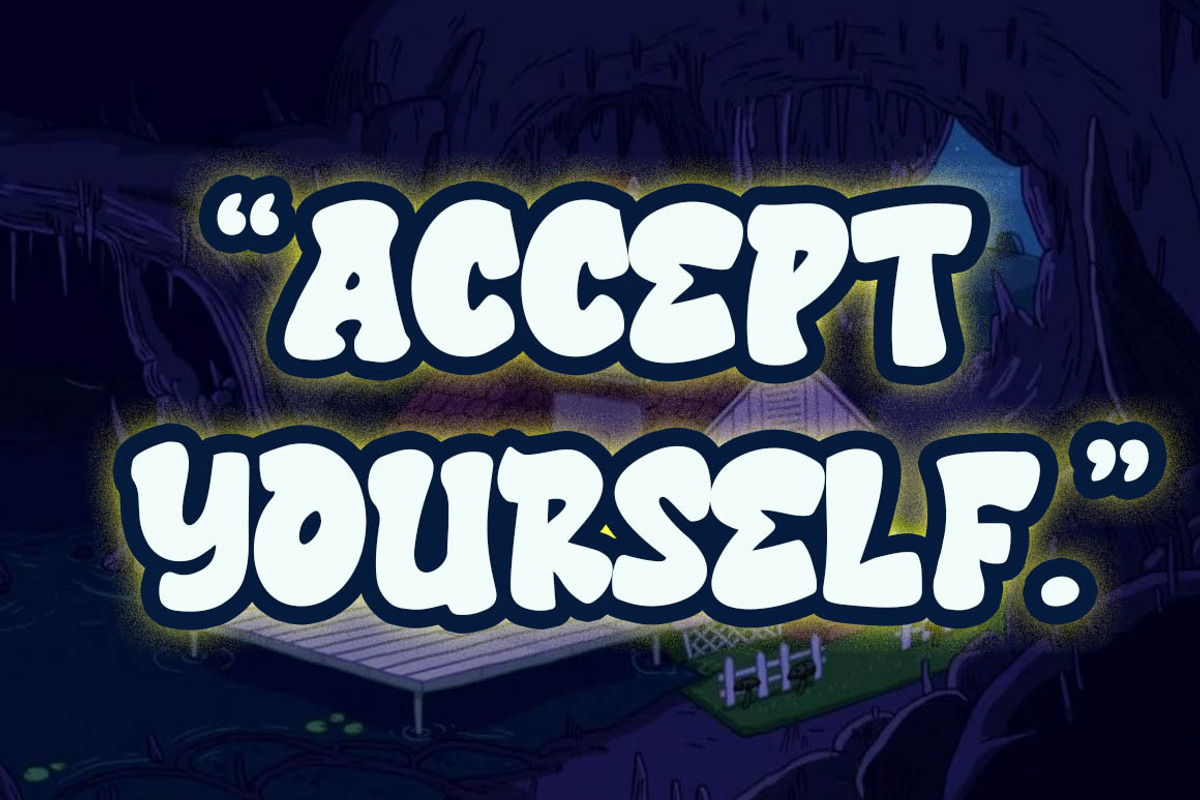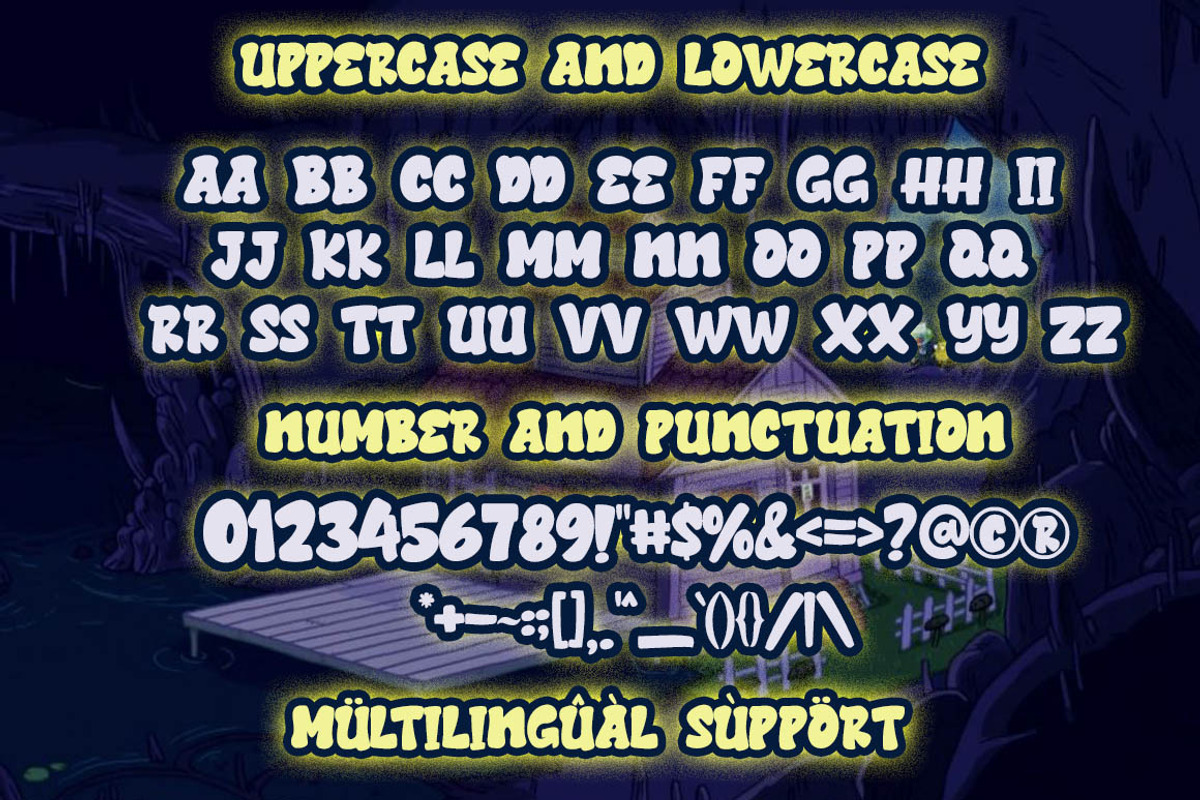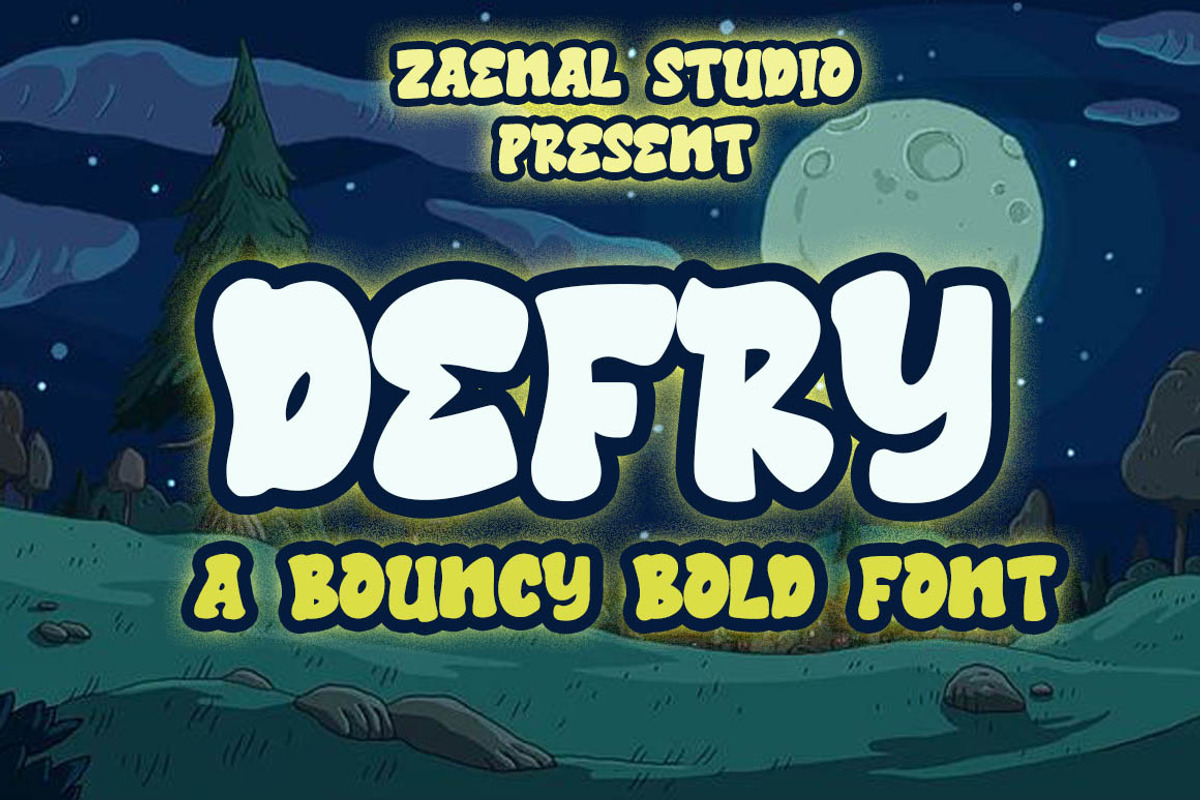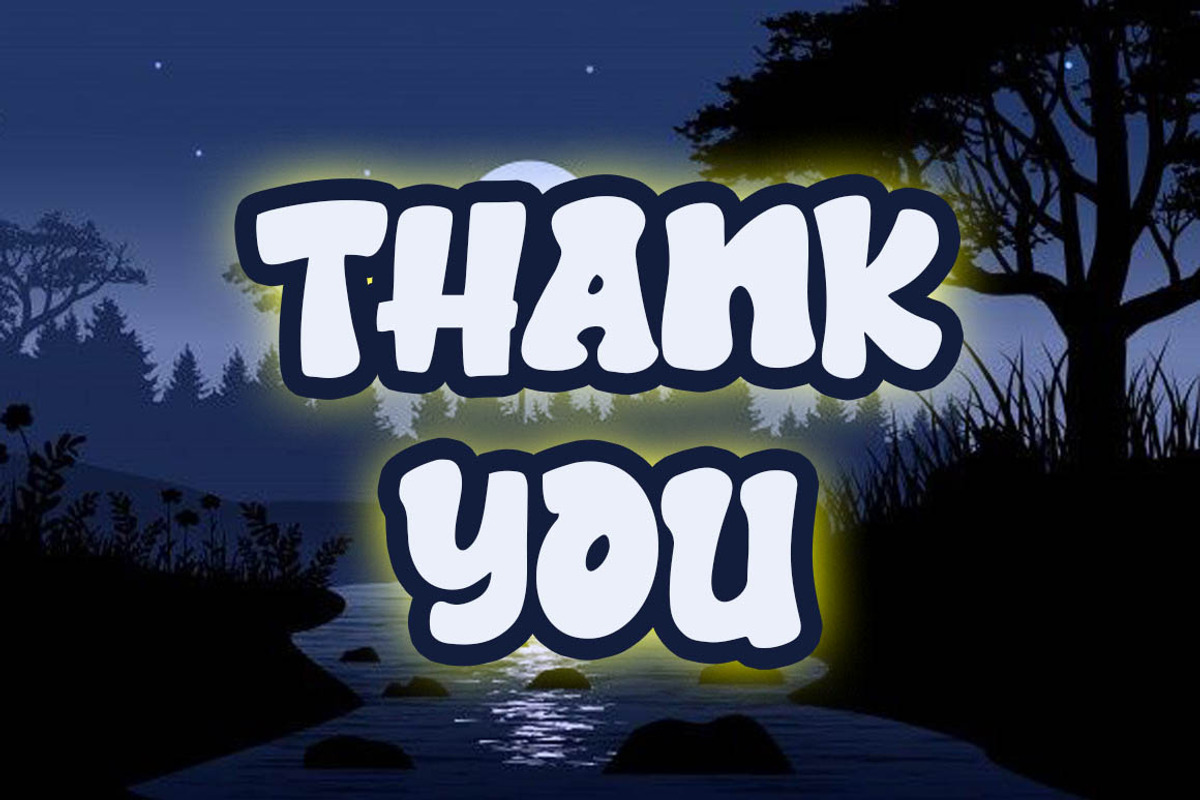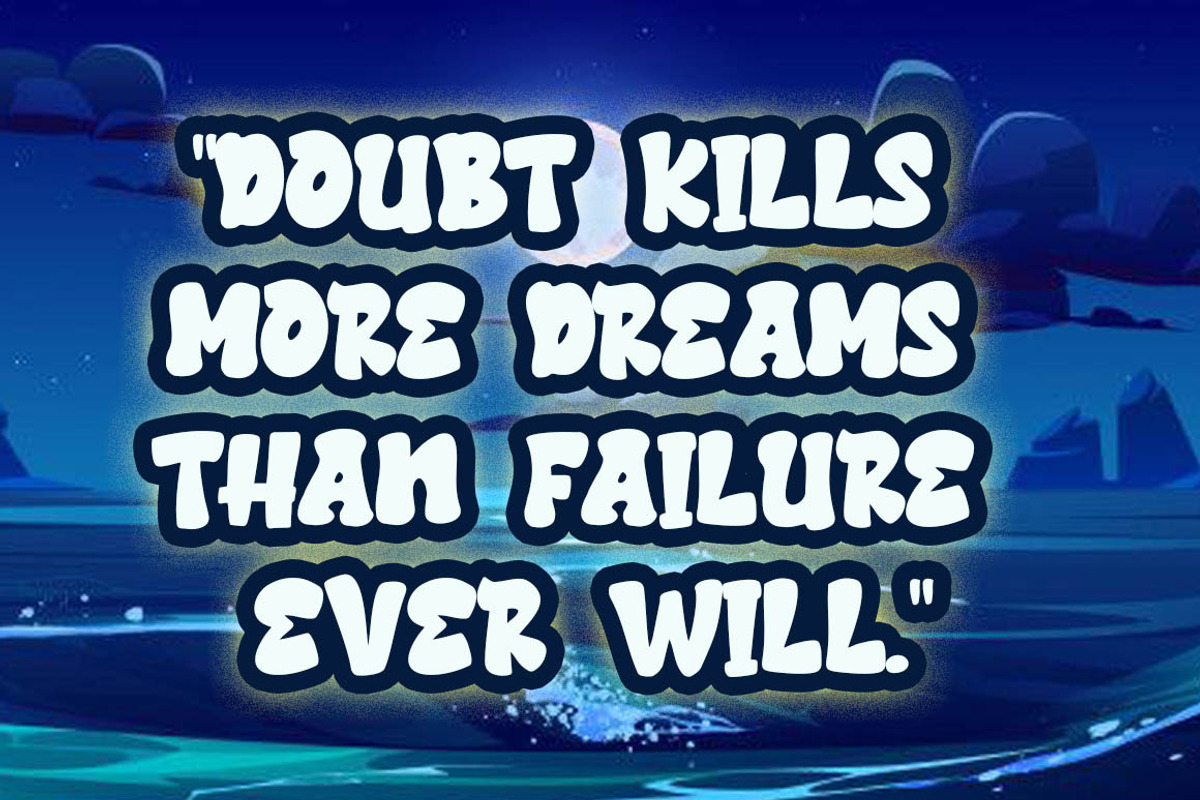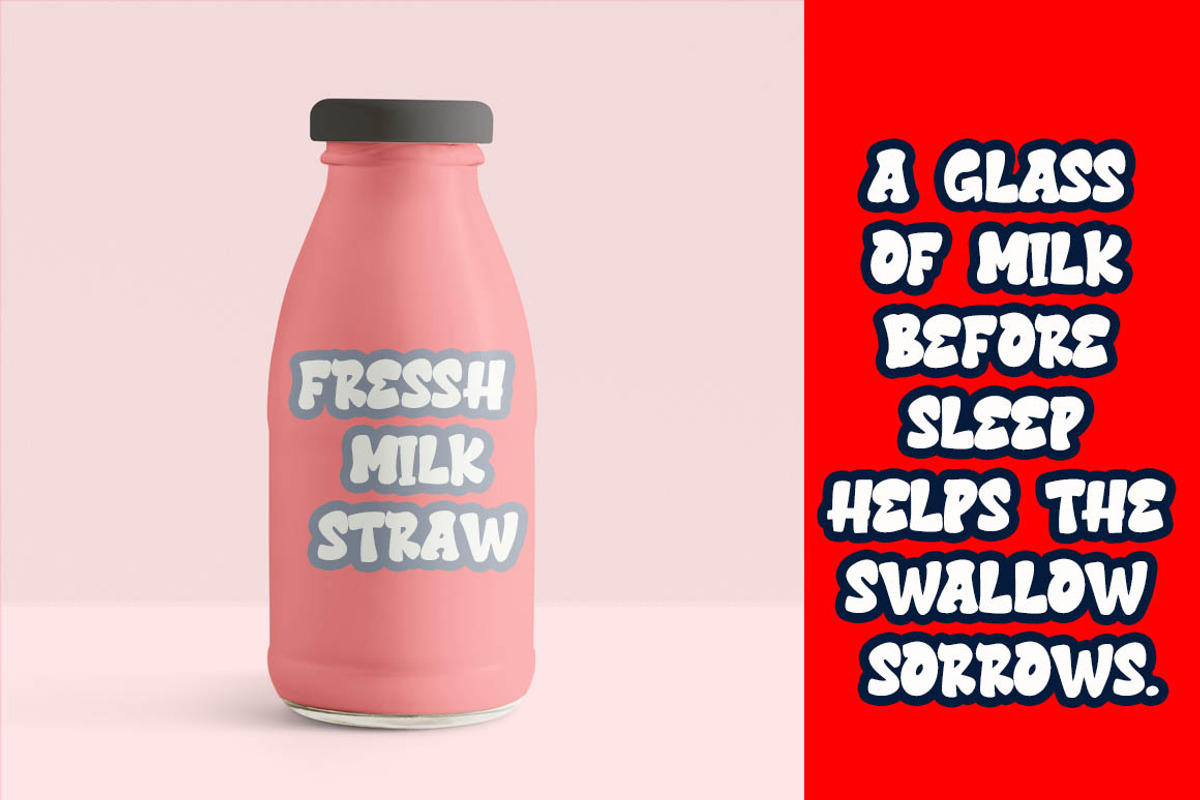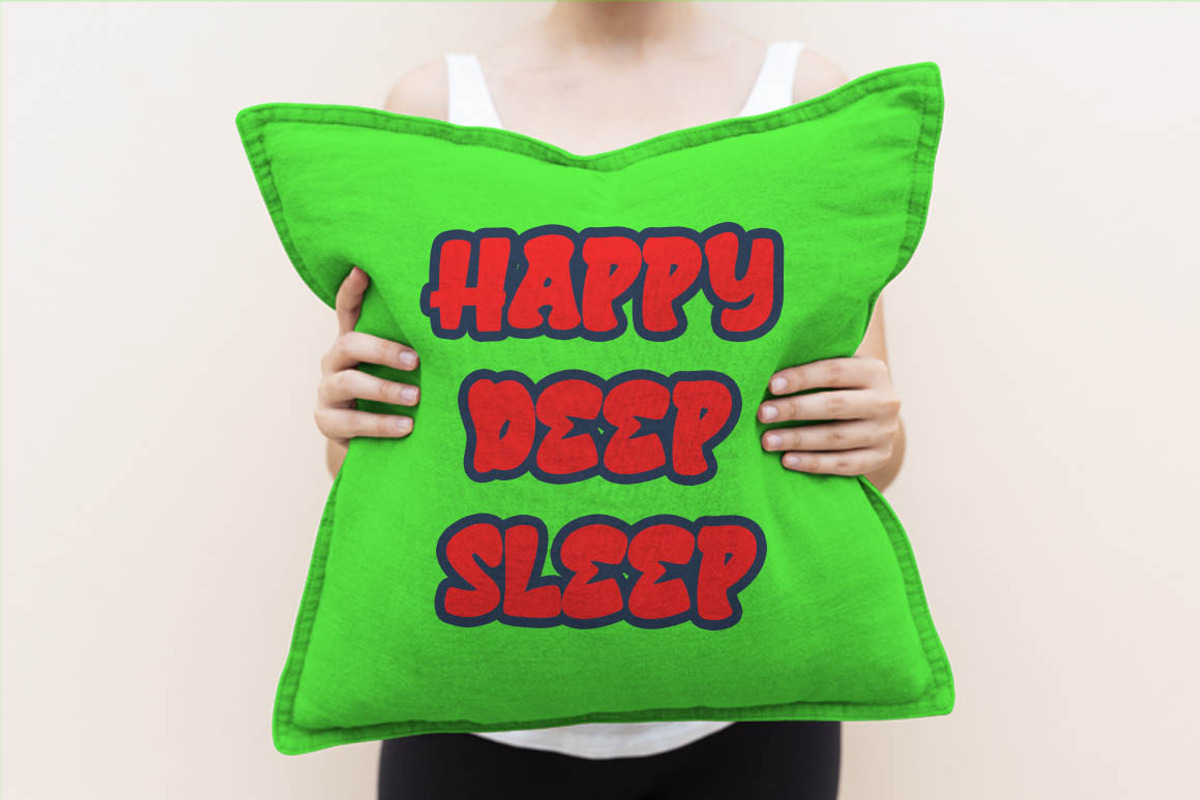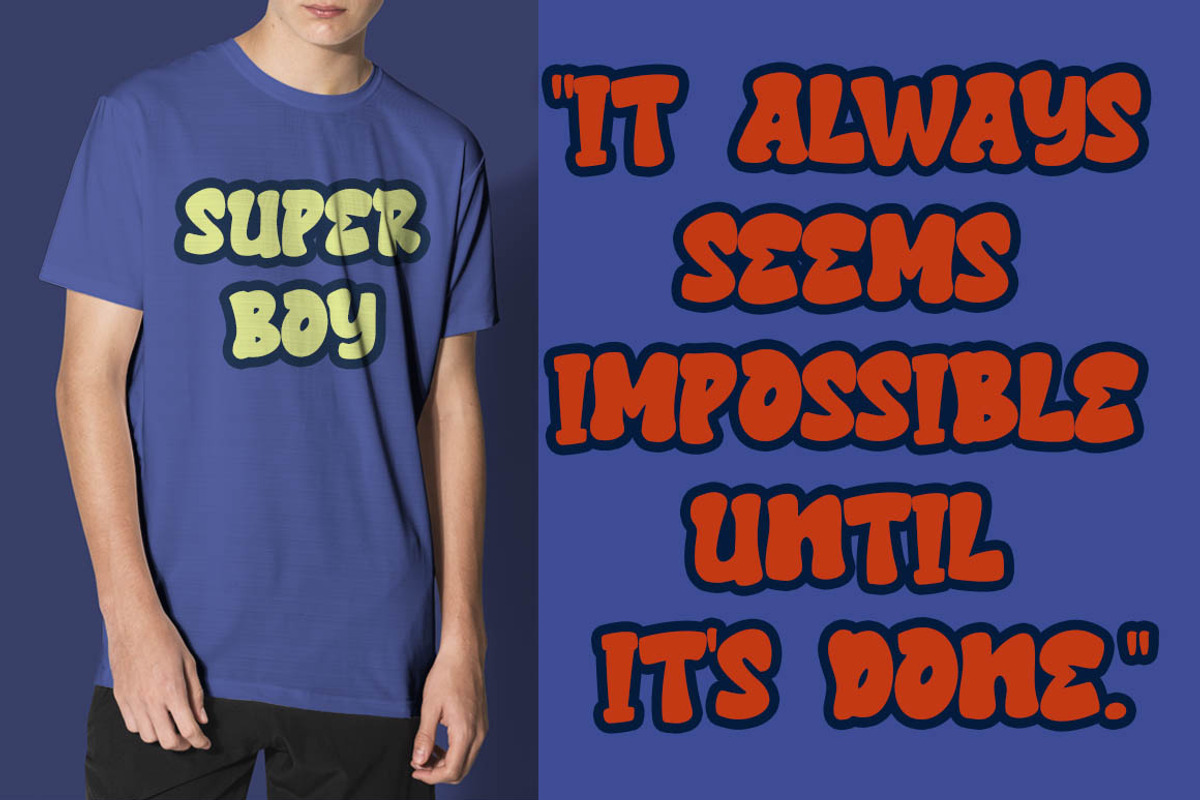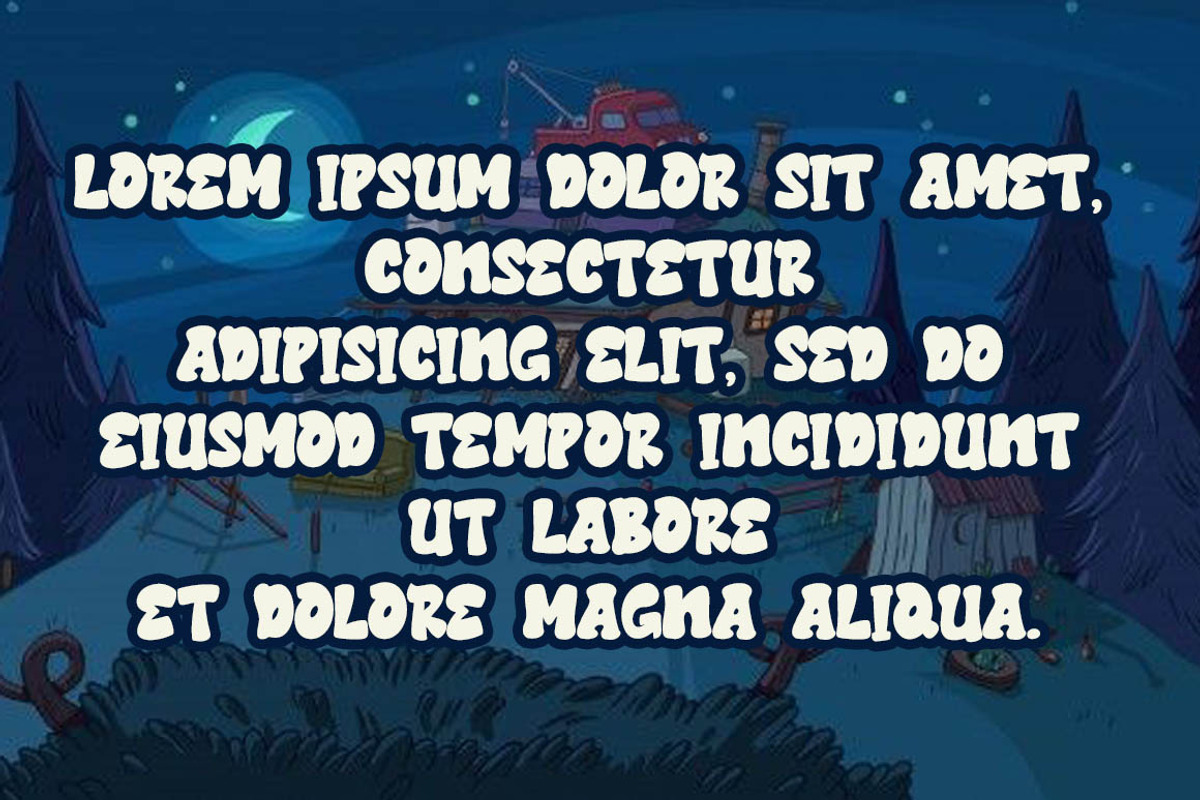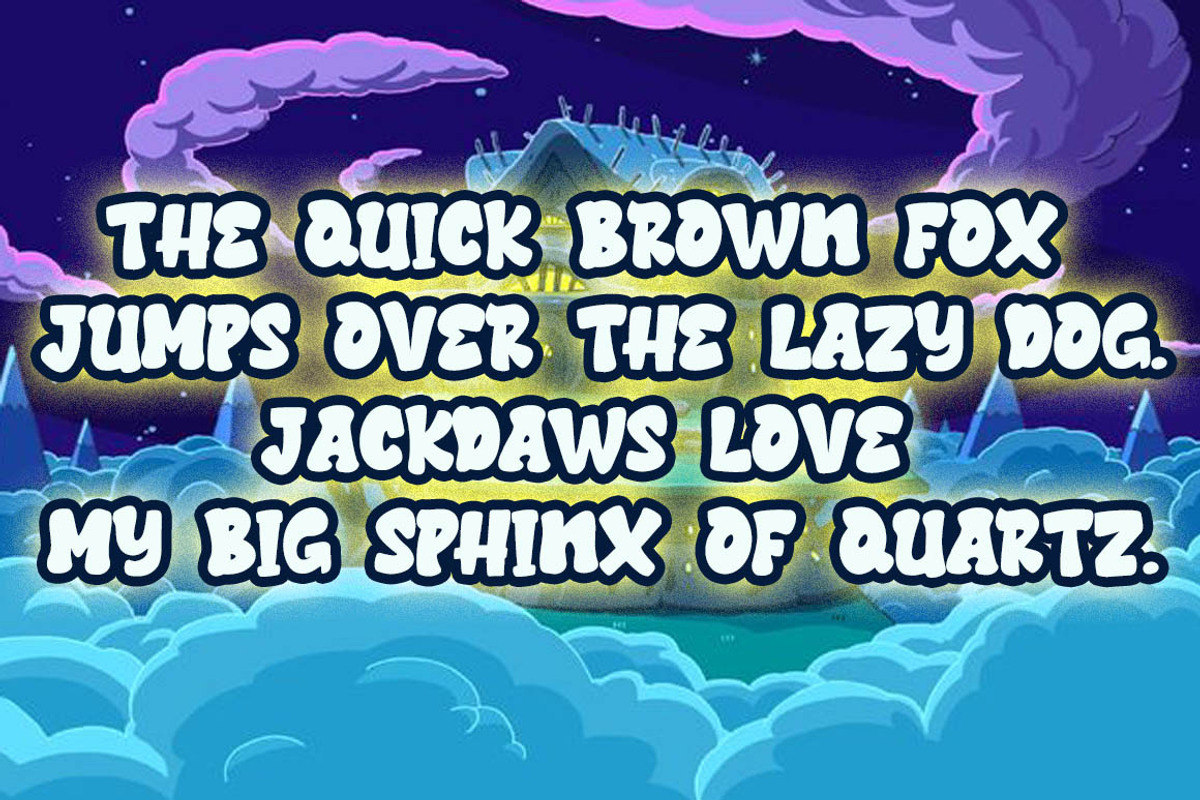
Defry
Defry Font is a Cartoon Font, unique, and funny font and very elegant font for brand and logo designs, especially for game. Based on our experience as graphic designers working in many companies, we are often asked to design a logo with a unique style but with an elegant shape. So, we tried to brainstorm and come up with this font to get ideas out. It is perfect for ,Cartoon, Vintage Logo, BRANDING and LOGO DESIGN. You will get a classy, elegant, and of course unique logo with this font. To make it look even more unique we created some alternate for you, so you can create any amazing design you want. Defry Font also includes the full set: -uppercase and lowercase -multilingual symbol -number -punctuation